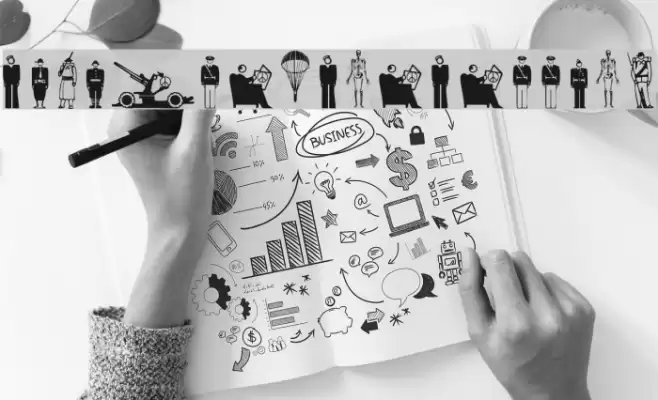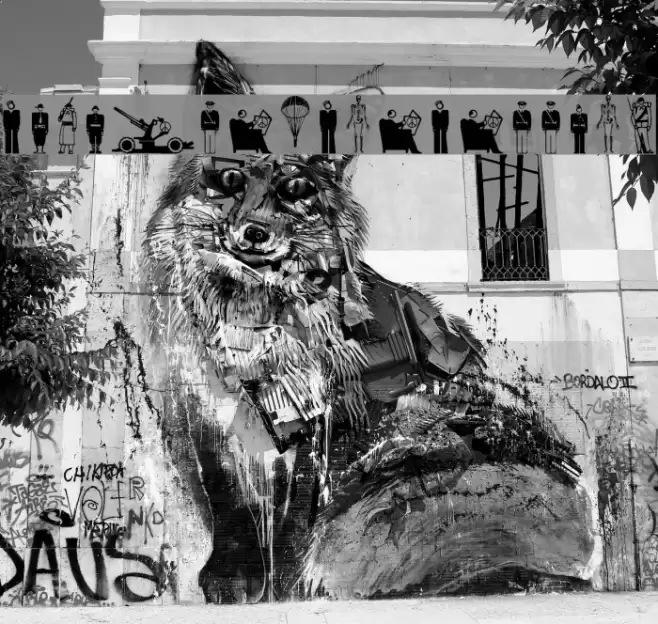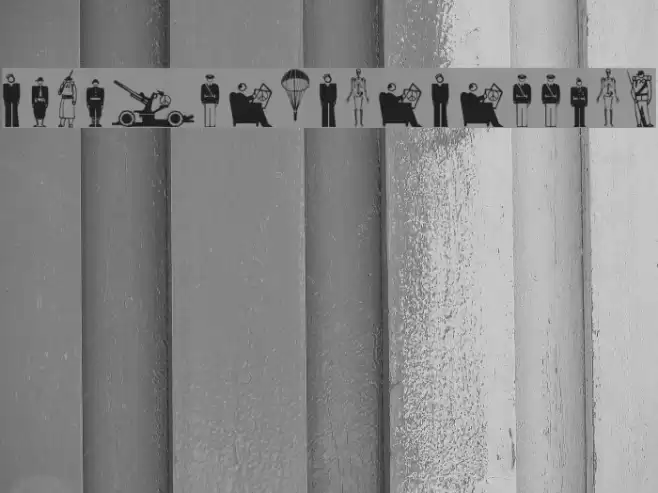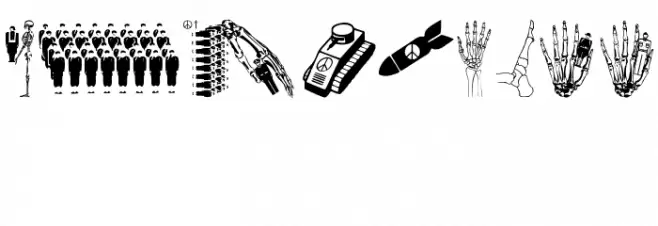
FightersForFreedom Font
A pictogram-style dingbat set featuring various military and wartime figures, vehicles, weapons, and anatomical illustrations, all rendered in bold, simplified black-and-white silhouettes with minimal detail and strong geometric forms.
Bold pictogram dingbats depicting military and war-related imagery from Uncategorized fonts.
- Proposed Projects: Posters, educational materials, infographics, editorial illustrations, protest art.
- Overall Style: Decorative, Modern, Pictographic
- Use Case: Icons, Illustrations, Thematic graphics